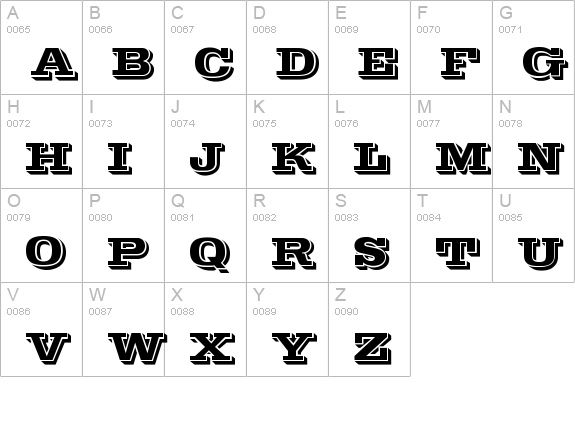
POSTOFFICE Bold is a strong, high-contrast variant in the POSTOFFICE typeface family \xE2\x80\x94 well suited to headlines, attention-grabbing titles, and strong calls-to-action.
POSTOFFICE Bold font is a striking and versatile typeface that commands attention with its bold and commanding presence. Perfect for making a statement in headlines, titles, and branding materials, this font exudes confidence and strength. Its clean lines and sharp edges give it a modern and dynamic feel, making it ideal for projects that require a touch of boldness. And the best part? POSTOFFICE Bold font is freely available to download at FontsMarket.com. Whether you're a designer looking to add a powerful element to your designs or a content creator wanting to make a bold statement, this font is a fantastic choice. Don't miss out on the opportunity to elevate your projects with the impactful POSTOFFICE Bold font, now just a download away at FontsMarket.com.